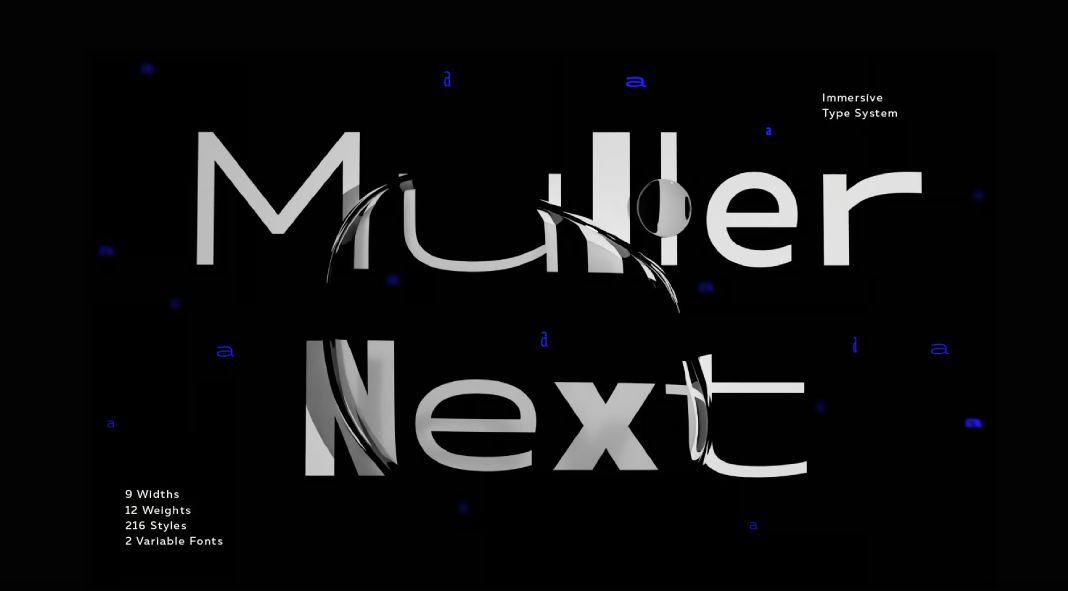
A Font Family That Elevates Your Typographic Designs to New Heights: Muller Next
There is a new font family that stands as a testament to the power of innovation and the pursuit of excellence – Muller Next by Fontfabric. This remarkable collection of typefaces is not merely an evolution of its predecessor, the highly acclaimed Muller font; it’s a transformative leap forward, ushering in a new era of typographic possibilities.
The genesis of Muller Next can be traced back over a decade ago when the initial sketches emerged from the mind of designer Radomir Tinkov. Muller, the font that would serve as the foundation for this ambitious endeavor, had already established itself as a favorite among designers, captivating them with its impeccable geometric structure and timeless elegance.
However, the Fontfabric team wasn’t content to rest on their laurels. They envisioned a font family that would not only preserve Muller’s inherent strengths but also propel it to even greater heights. This is where the design wizardry of Plamen Motev came into play. Joined by the equally brilliant Leon Hugues, Motev embarked on a journey to refine and expand Muller’s functionality, pushing the boundaries of what a font family could achieve.
Countless brainstorming sessions, countless hours of meticulous craftsmanship, and the occasional tussle with a stubborn letterform later, Muller Next was born. Today, it stands as a masterpiece of typographic design, available through Fontfabric and ready to empower designers worldwide.
With an astounding 216 styles, encompassing 9 widths, 12 weights, and italics, Muller Next offers an unparalleled level of versatility. From the ultra-condensed to the ultra-expanded, this font family opens up a universe of creative possibilities, allowing designers to manipulate typographic spaces like never before.
Muller Next isn’t just a collection of fonts; it’s an invitation to explore the limitless potential of typography. It’s a tool that empowers designers to craft visual narratives that captivate, inform, and inspire. Whether you’re working on branding, editorial, or web design, Muller Next has the power to elevate your work to new heights.
So, if you’re seeking a font family that seamlessly blends classic elegance with modern innovation, look no further than Muller Next. It’s the font family that will propel your designs to the next level and beyond.